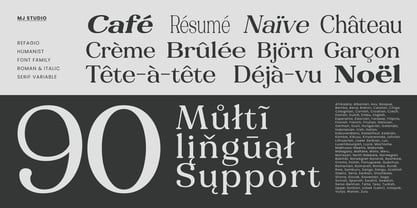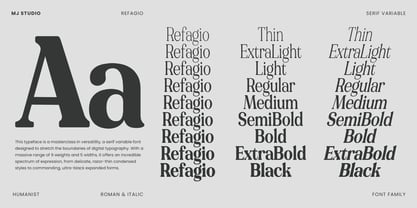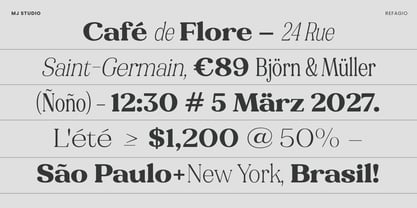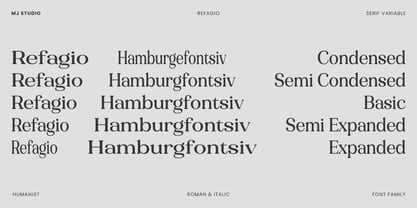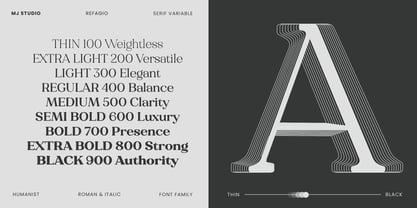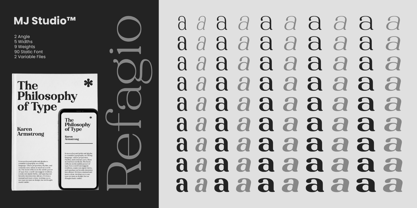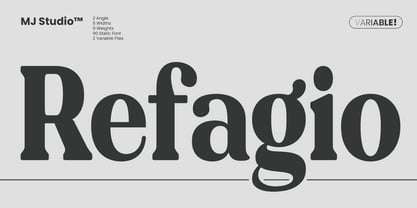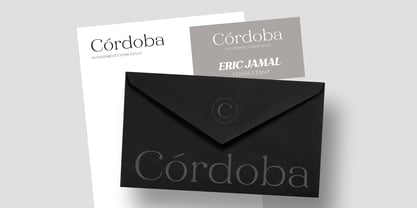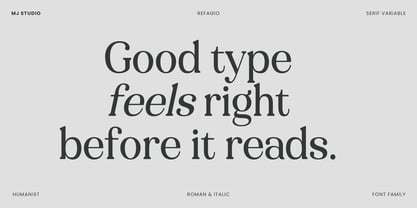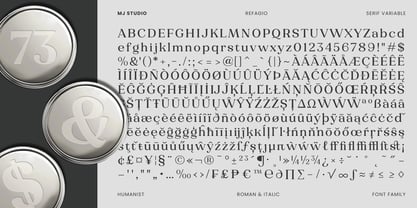
Refagio
The Refagio Font Family was designed by Ramadhan - and published by Mj Studio. Refagio contains 92 styles and family package options. More about this family
Refagio – Elegant Serif with Modern Character Refagio is an elegant serif typeface that blends timeless sophistication with a modern sensibility. Crafted with refined details and balanced proportions, it delivers a luxurious, stylish, and professional impression in every letterform. With a versatile range of weights and widths, Refagio adapts seamlessly to a wide variety of design needs—from branding and editorial layouts to logos, packaging, and bold, expressive headlines. Each glyph is thoughtfully designed with distinctive character, giving the typeface a unique identity while maintaining excellent readability. This makes Refagio a perfect choice for designers seeking to stand out while preserving elegance and clarity. Features: 9 weights with multiple widths Variable font support Elegant ligatures and stylistic alternates Multilingual support Ideal for luxury branding, fashion, editorial, and logo design Refagio is more than just a typeface—it’s a visual statement.